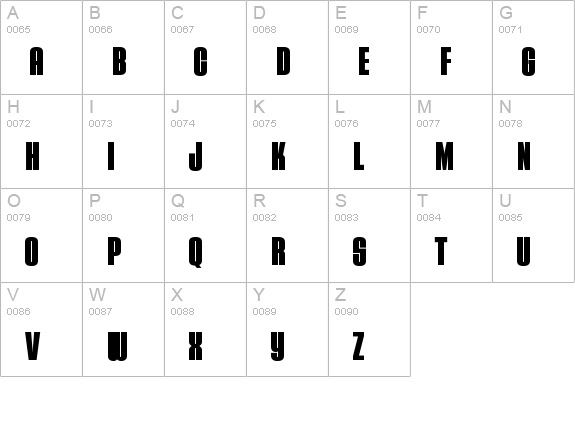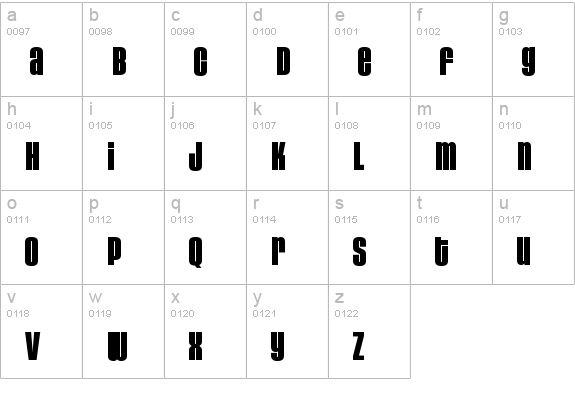
HouseGothicHG23Cond BLACK Font Details
HouseGothicHG23Cond BLACK is a maximum-weight, dramatic variant in the HouseGothicHG23Cond typeface family \xE2\x80\x94 well suited to maximum-impact headlines, posters, and packaging.
HouseGothicHG23Cond BLACK is a striking and bold font that exudes a sense of modernity and sophistication. Its sleek lines and sharp edges make it perfect for headlines, posters, and branding materials that demand attention. The font's condensed style adds a touch of elegance and efficiency to any design project. Best of all, HouseGothicHG23Cond BLACK is available for free download at FontsMarket.com. This means you can easily access this high-quality font to elevate your creative projects without any cost. Don't miss out on the opportunity to enhance your designs with this versatile and stylish typeface. Download HouseGothicHG23Cond BLACK today and see the impact it can make on your work.